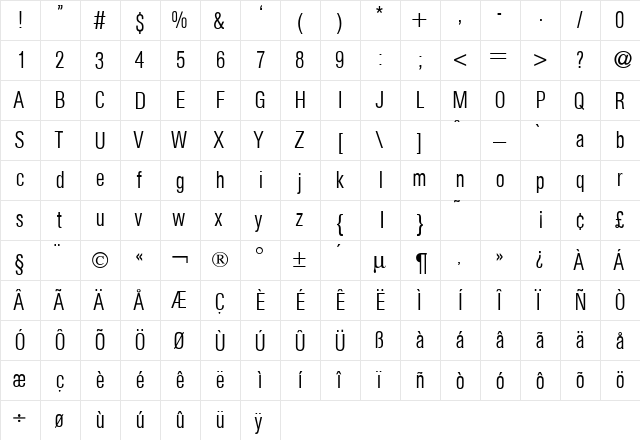
AgentCLight Normal Font Preview
AgentCLight Normal
Design Context for AgentCLight Typeface
AgentCLight offers clean, dependable letterforms without strong stylistic allegiance, making it a practical choice for designers who need flexibility. Its slender proportions lend an understated elegance to any composition.